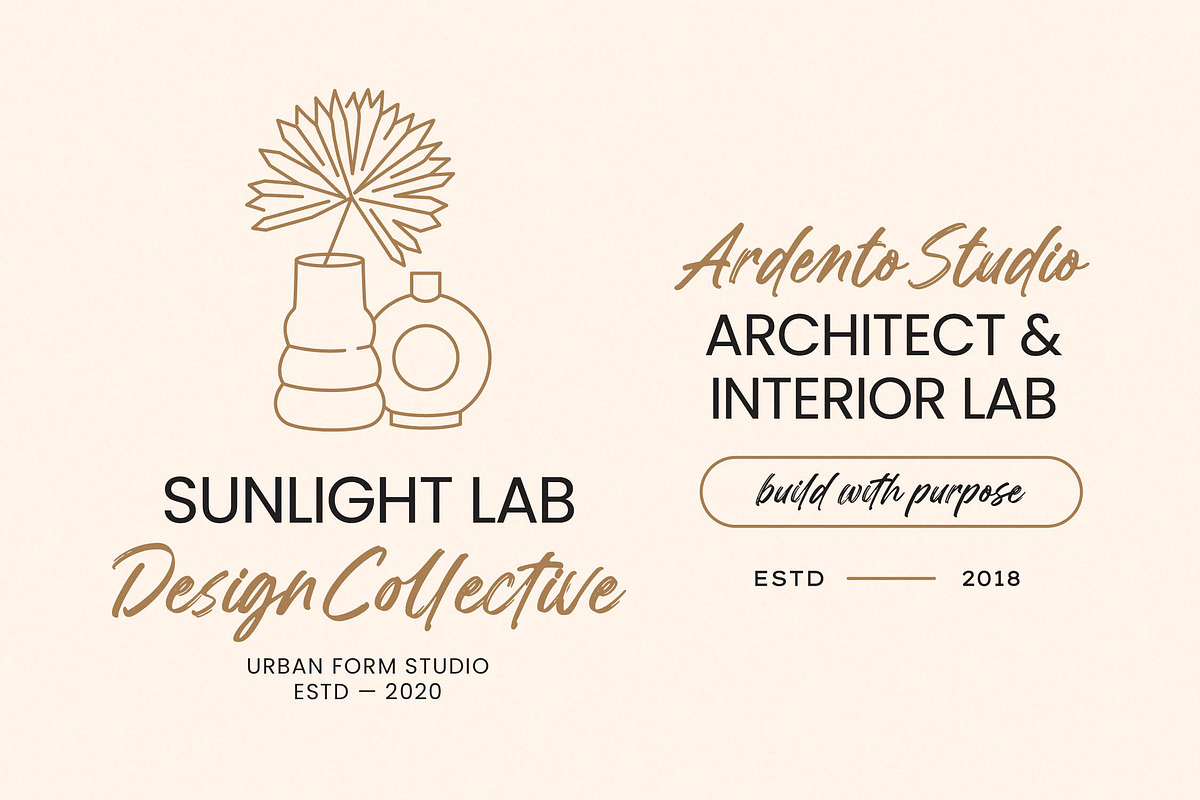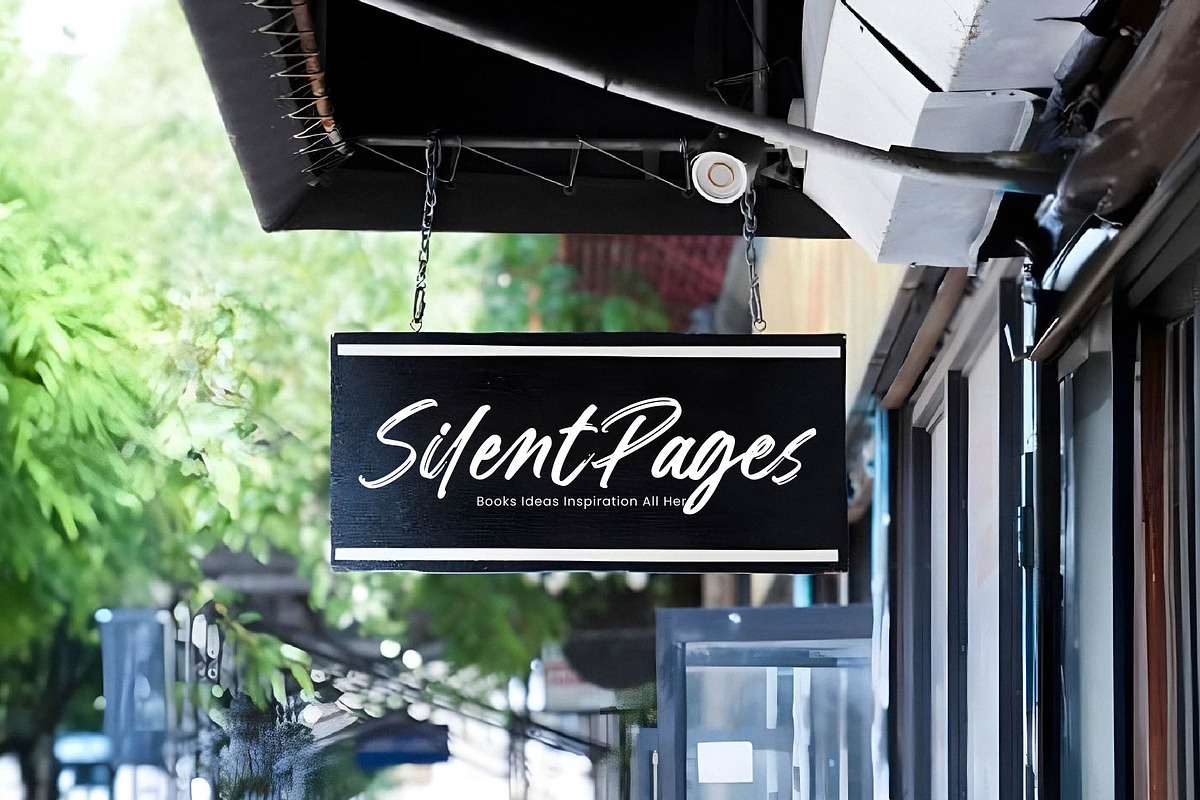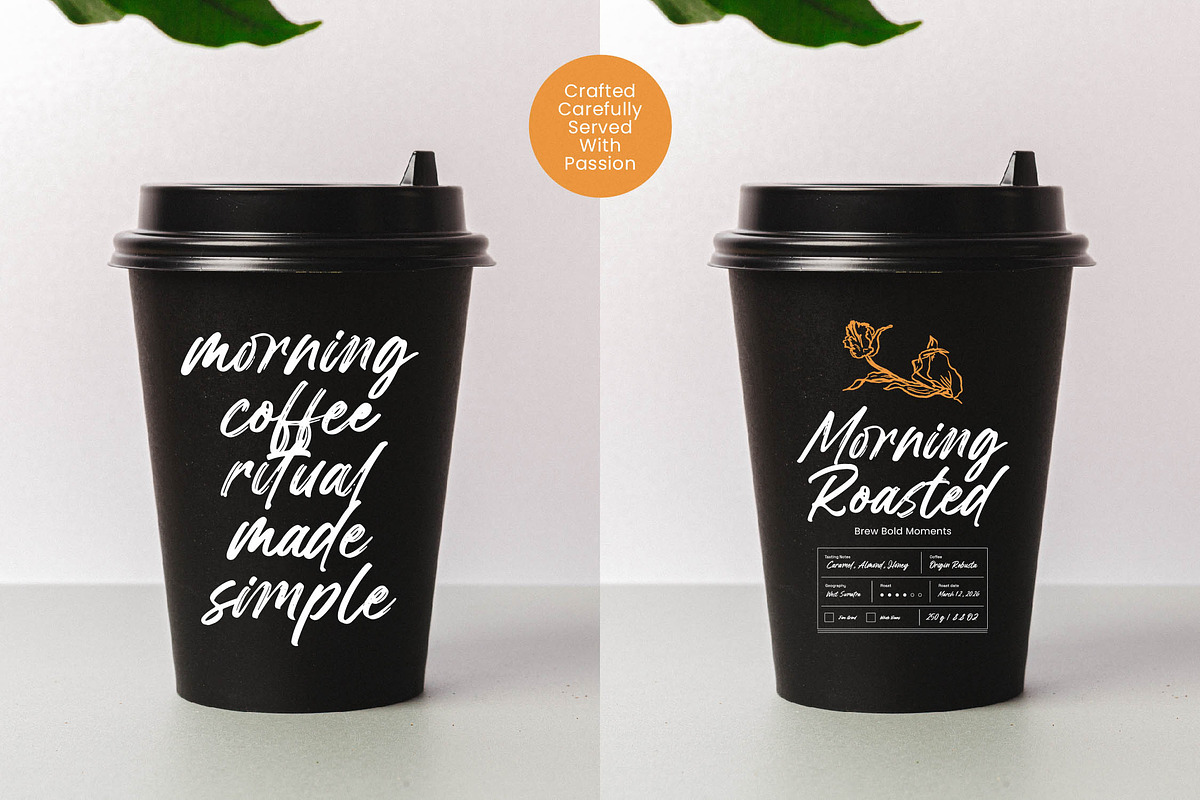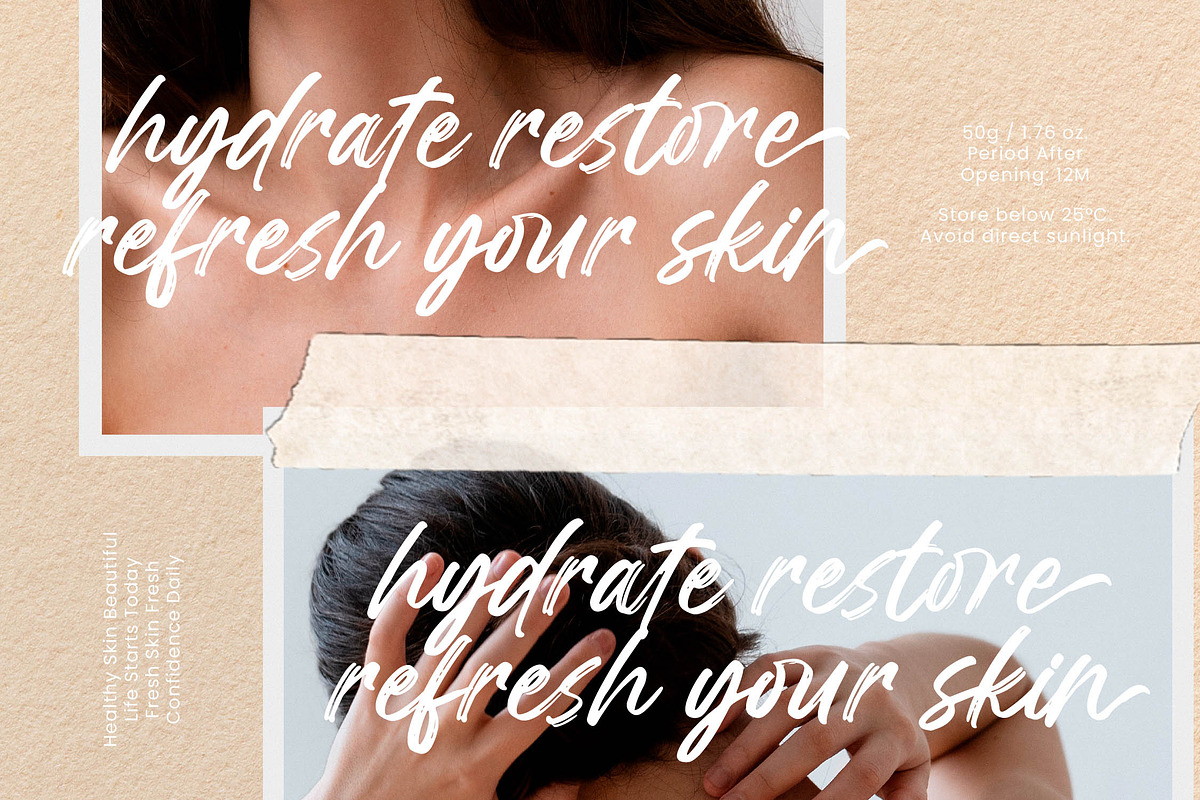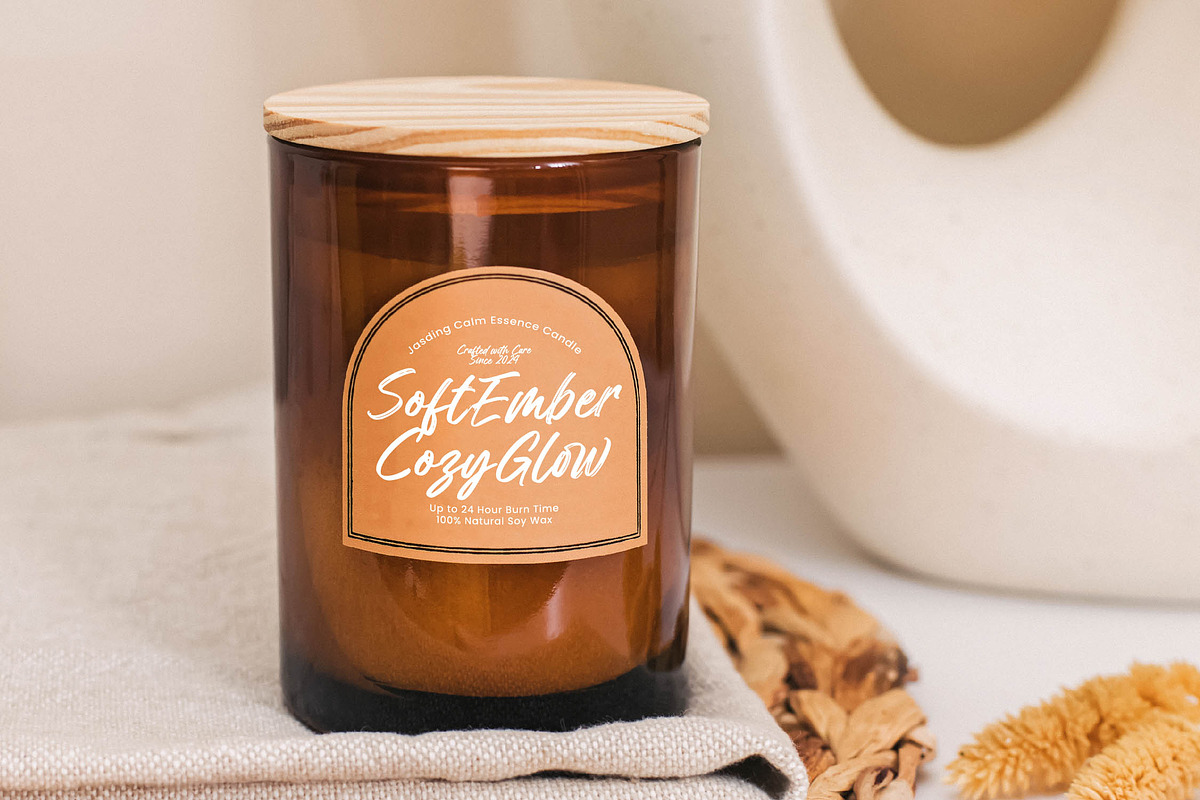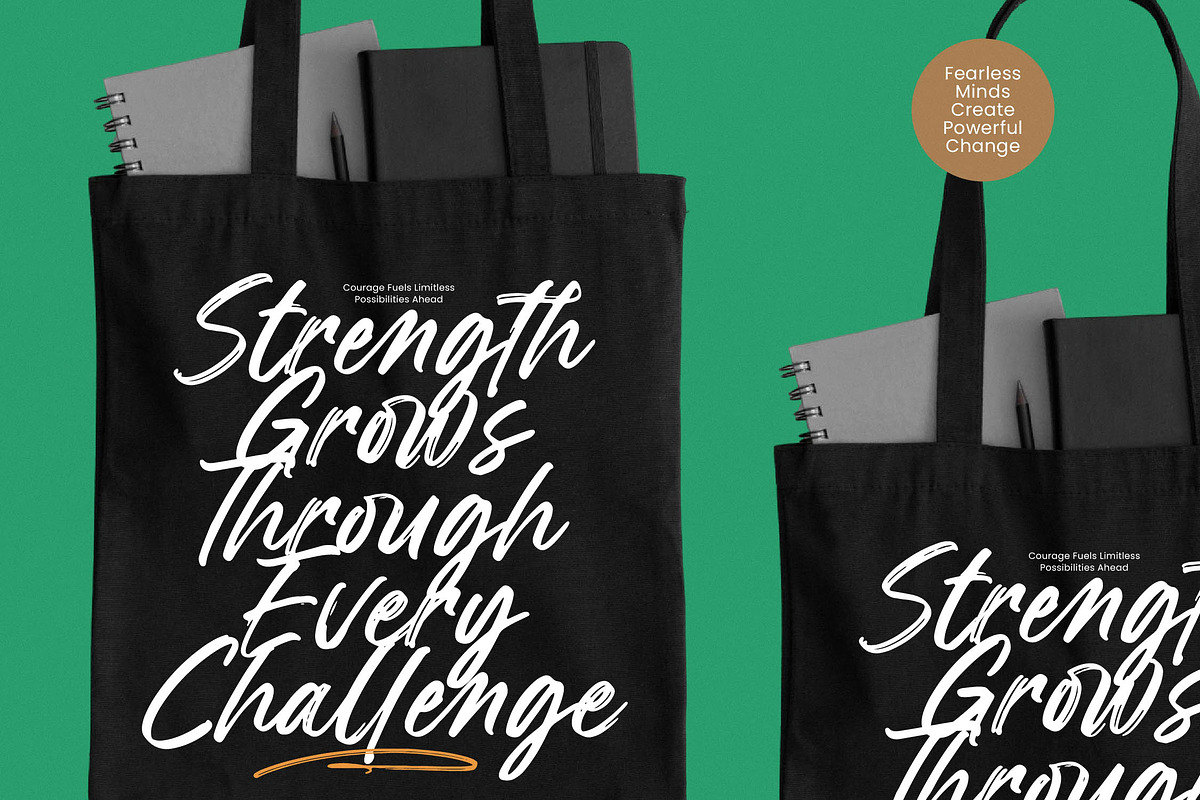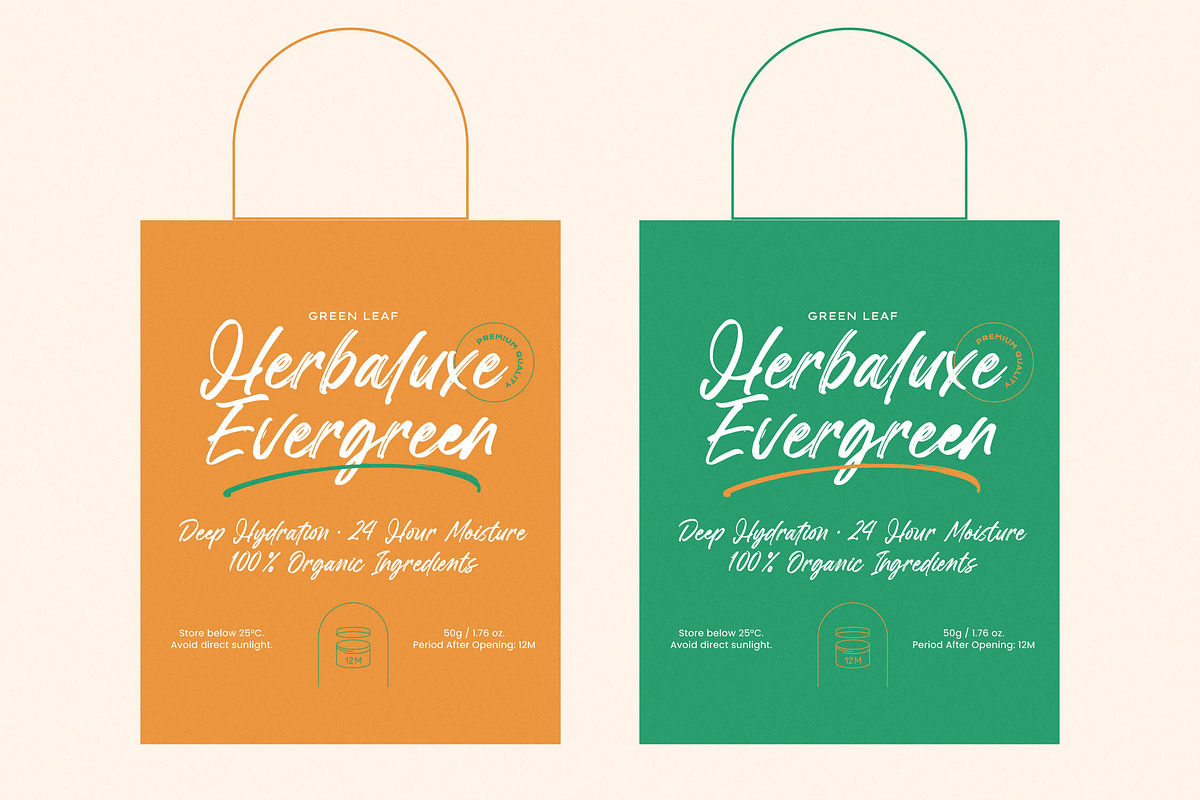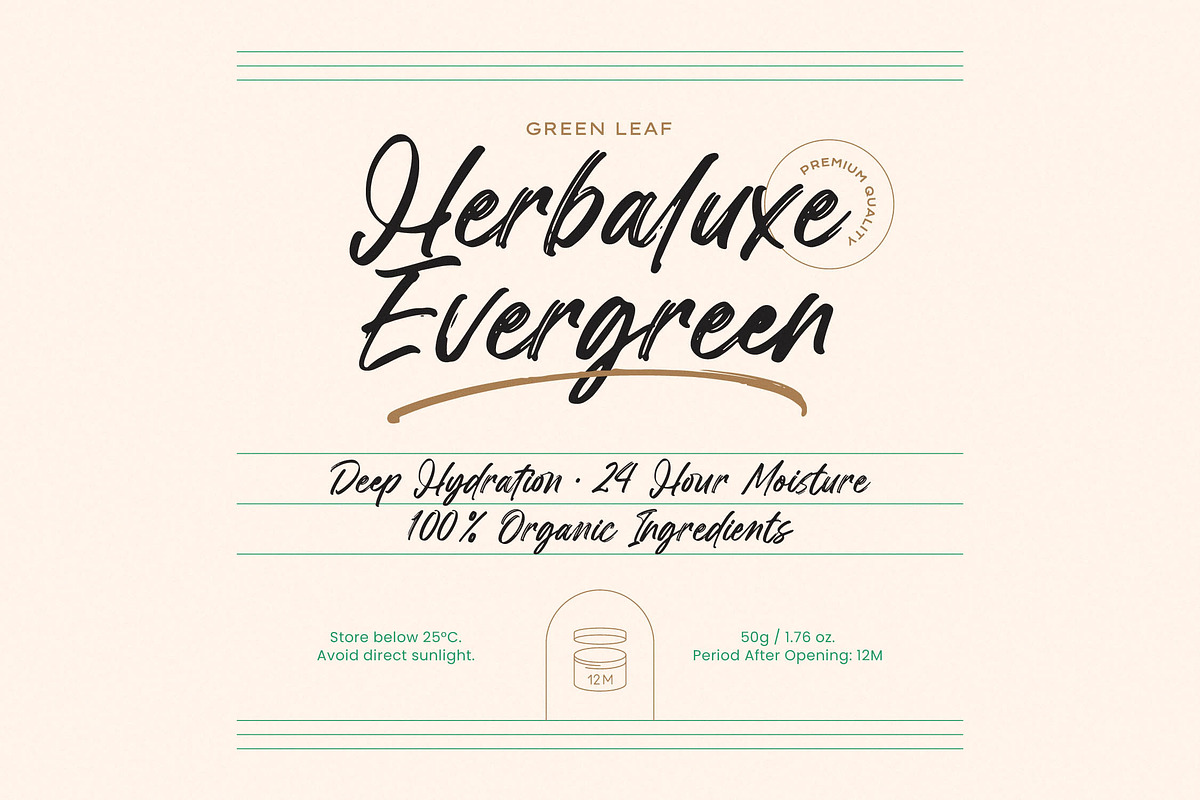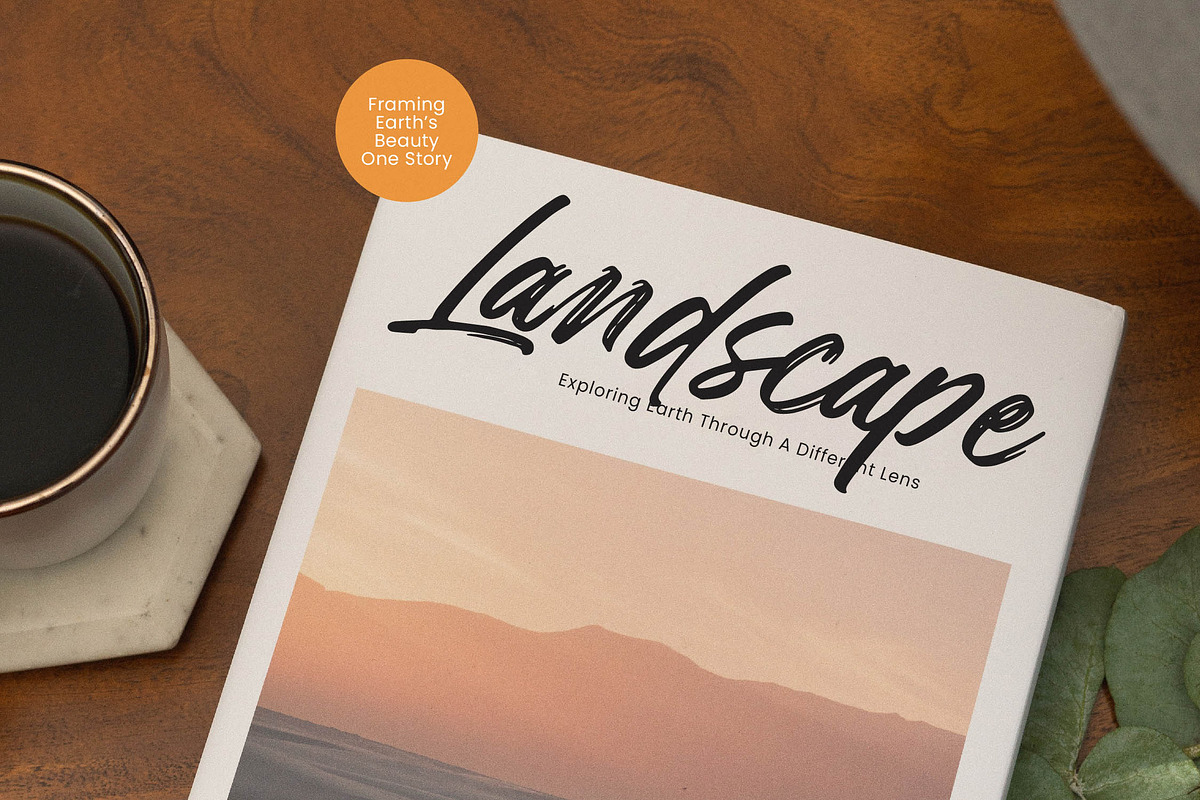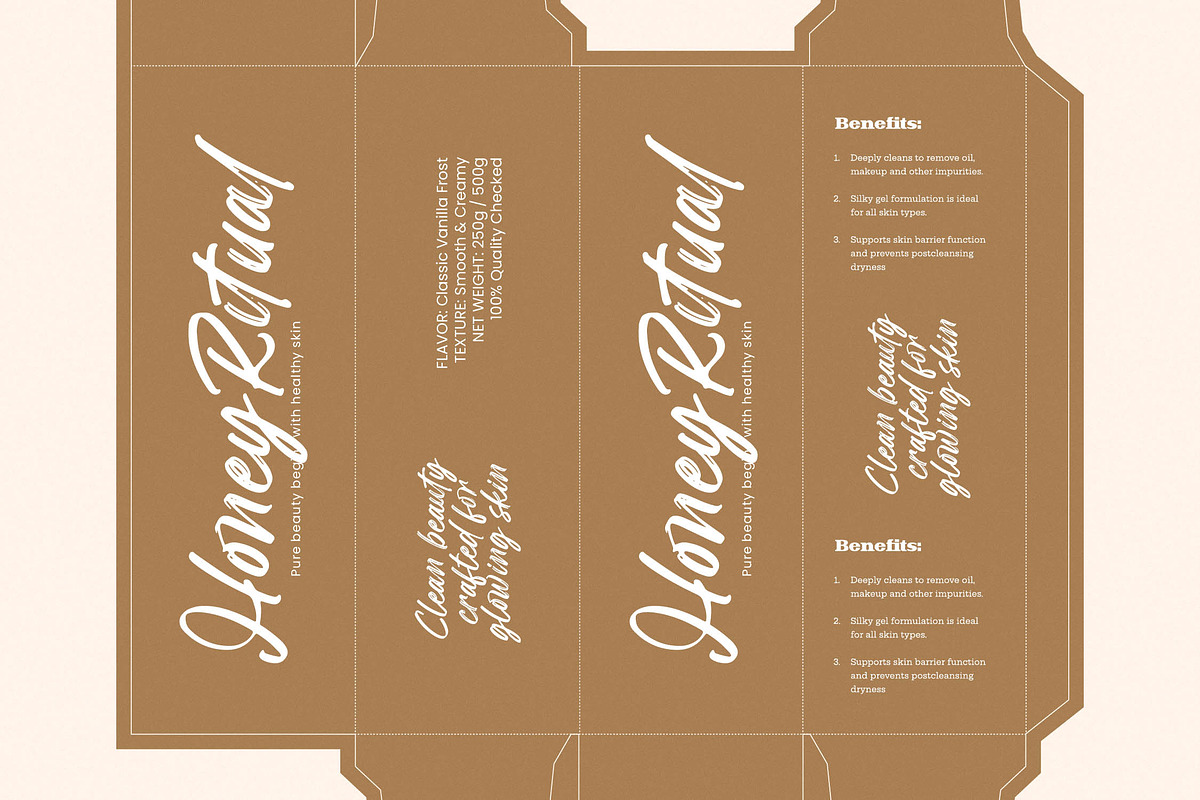
Jasding Blowned Handwritten Brush
Jasding Blowned - Handwritten Brush Font , Elevate your creative vision with the raw energy and fluid motion found in Jasding Blowned, a font that captures the essence of spontaneous expression. This striking handwritten brush font is designed to command attention while maintaining a personal, handcrafted feel.
Inspired by the fast-paced strokes of street art and the expressive nature of traditional ink brushes, this typeface breathes life into the digital canvas. It evokes the atmosphere of a bustling creative studio where every stroke is a deliberate act of passion and movement.
The personality of this typeface is rooted in its vibrant flow and tactile texture, making it a perfect choice for modern serif display alternatives when you need more grit. It balances luxury typography aesthetics with a rebellious edge, ensuring a powerful editorial font presence and significant branding impact for any project.
As the modern serif trend evolves into more expressive territory, designers are seeking character-driven typography that breaks away from the grid. Jasding Blowned perfectly fits the current wave of editorial display fonts that prioritize authenticity and human touch over digital perfection.
This versatile script excels in logo design and high-impact branding projects where a signature look is required. Its fluid motion makes it ideal for editorial layouts, organic packaging, bespoke wedding invitations, and bold fashion lookbooks.
To ensure maximum versatility, the package includes a comprehensive set of ligatures and alternates that allow for custom-looking wordmarks. It also features beautiful swashes and full multilingual support including international characters for a global design reach.